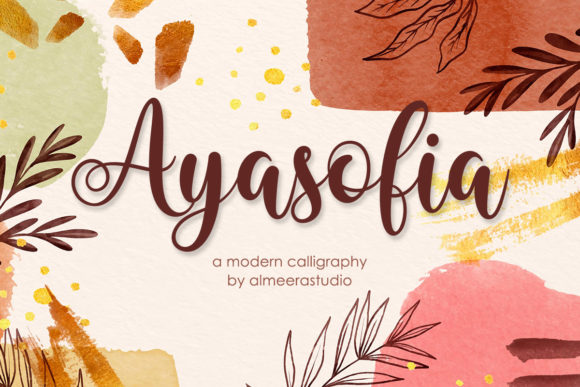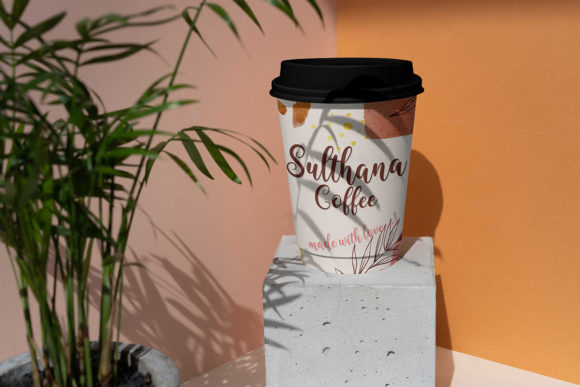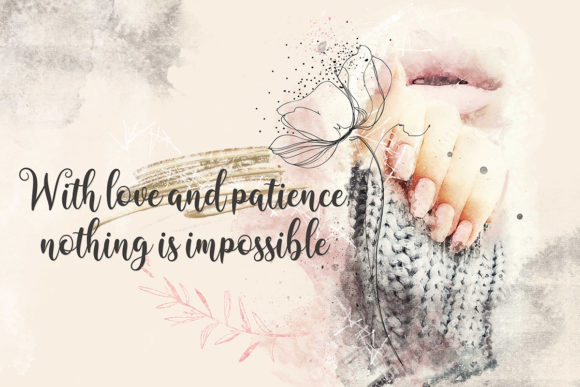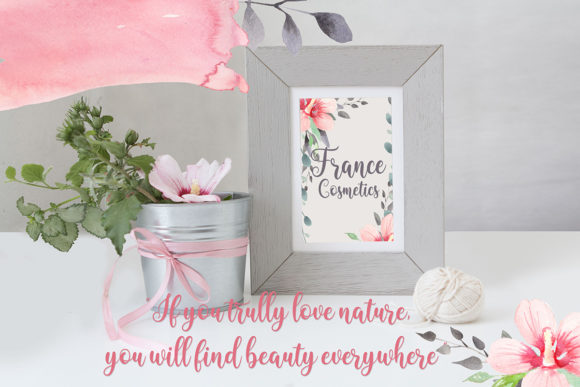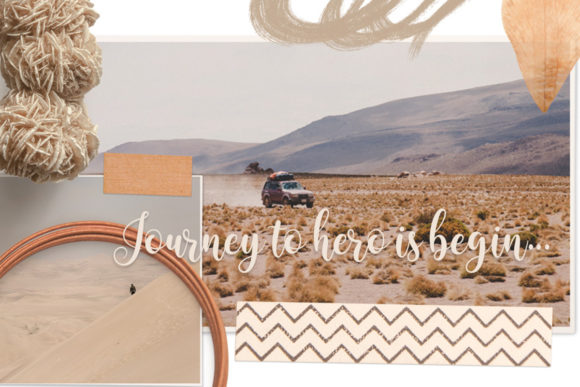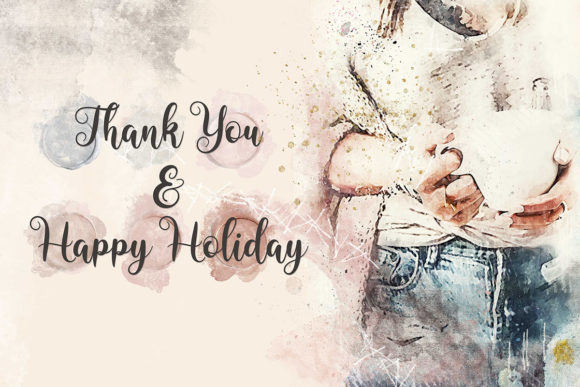
About Ayasofia Font
Ayasofia is a beautiful and flowing script font. It looks lovely on a variety of designs requiring a personalized style, such as wedding invitations, thank you cards, weddings, greeting cards, logos and so on.